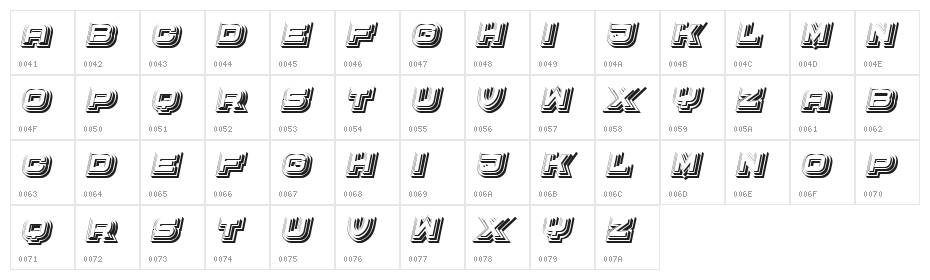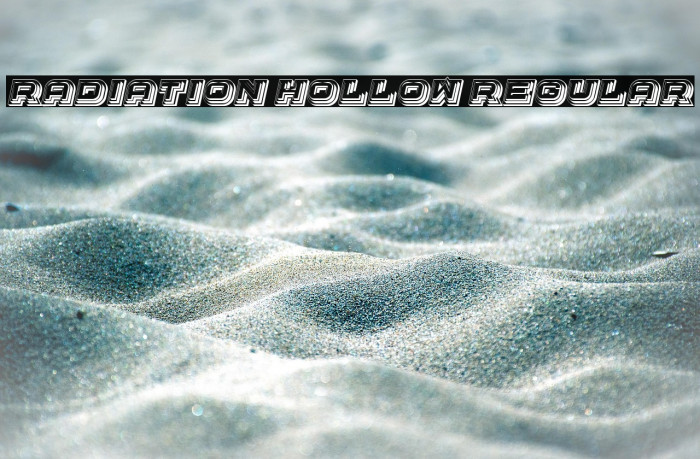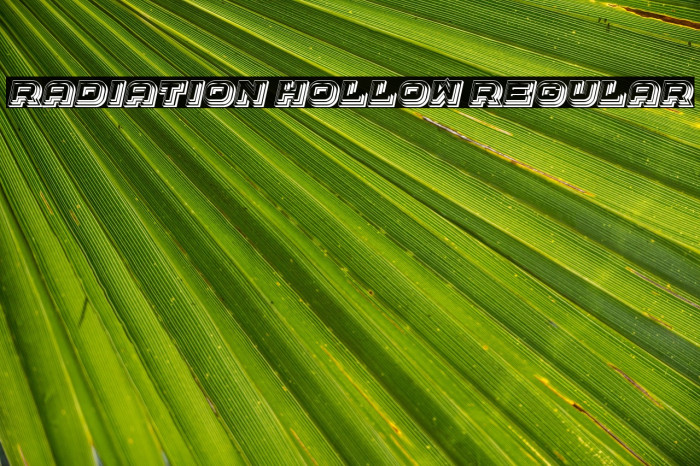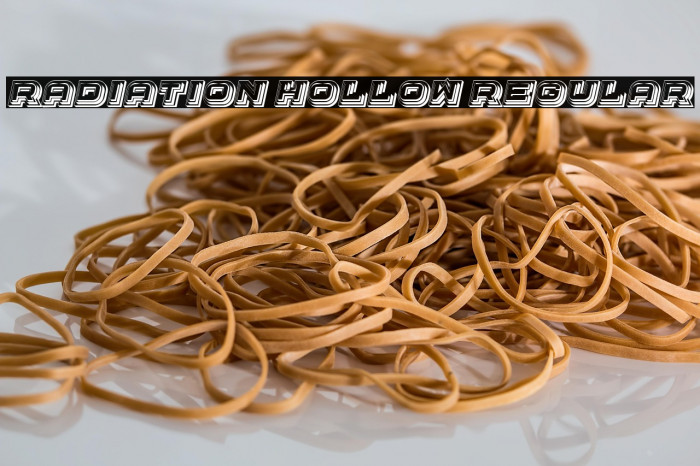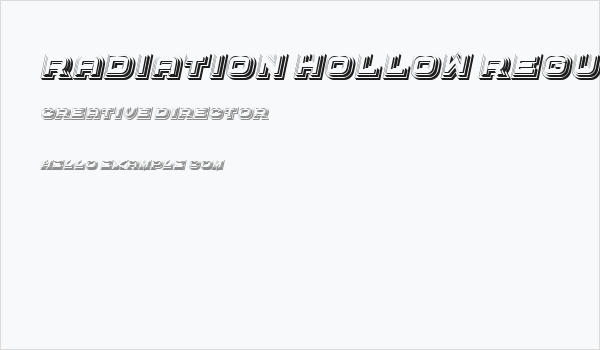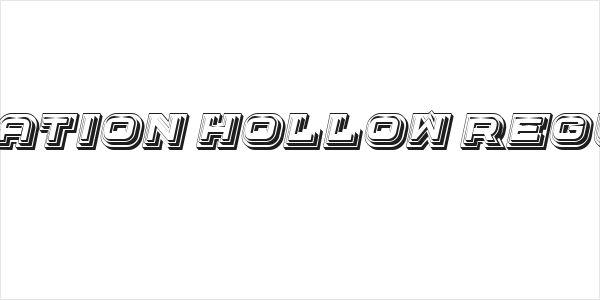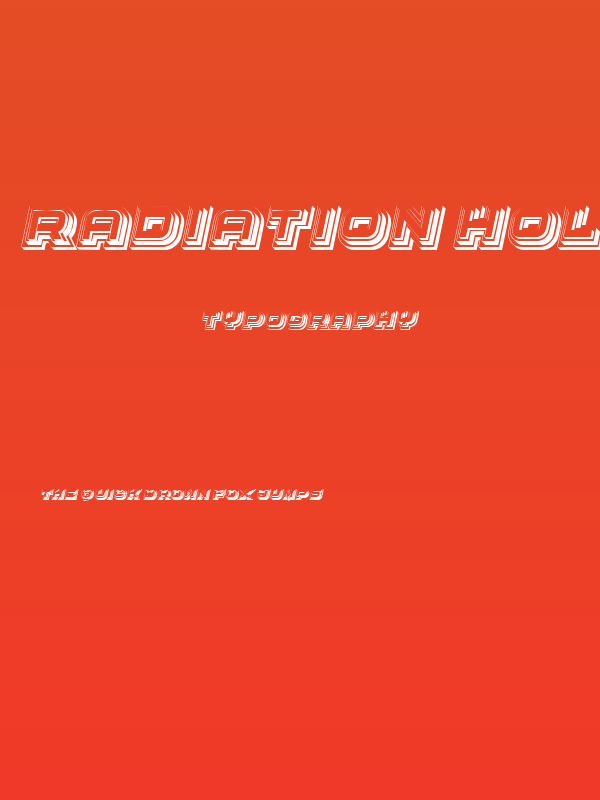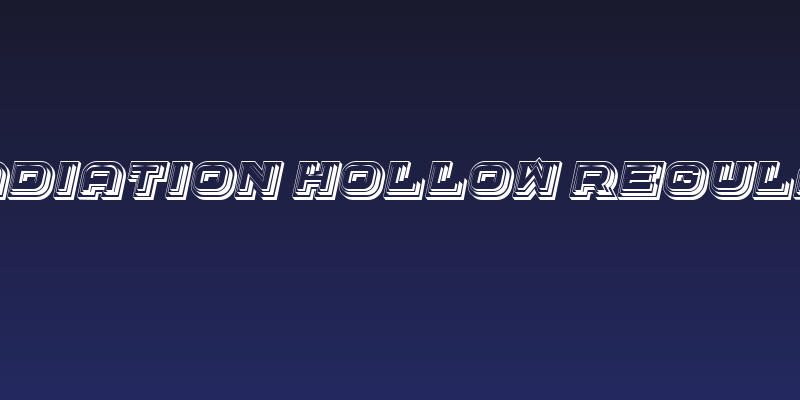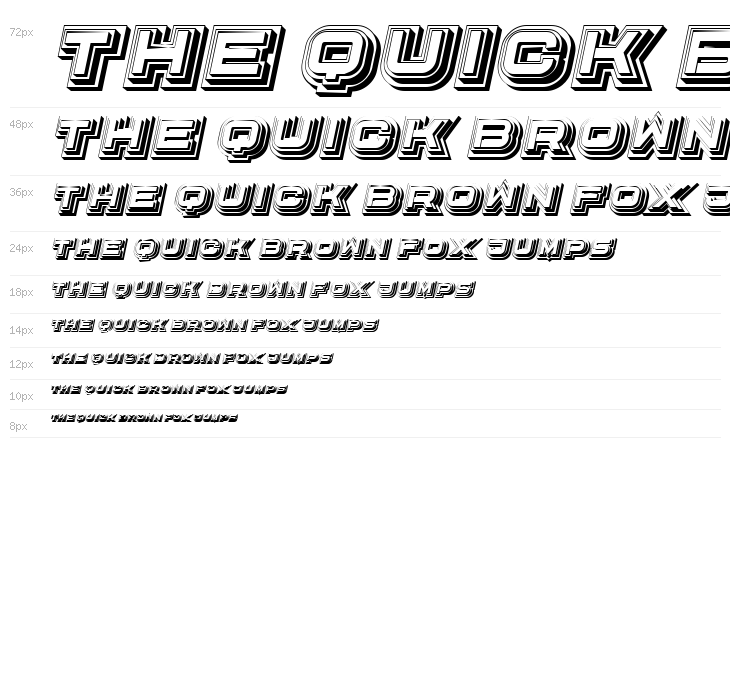
Radiation Hollow Regular Font
Radiation Hollow Regular Description
This font features a bold, hollow design with a futuristic and dynamic appearance. The characters are outlined with multiple layers, creating a sense of depth and movement. The geometric shapes and sharp angles give it a modern and edgy look, making it stand out in any design. The font is highly stylized, with each letter having a unique structure that contributes to its overall aesthetic. The hollow centers and layered outlines create a striking visual effect, perfect for eye-catching headlines or creative projects.
| Proposed Projects | Ideal for sci-fi themed posters, video game graphics, tech branding, and modern advertising campaigns. |